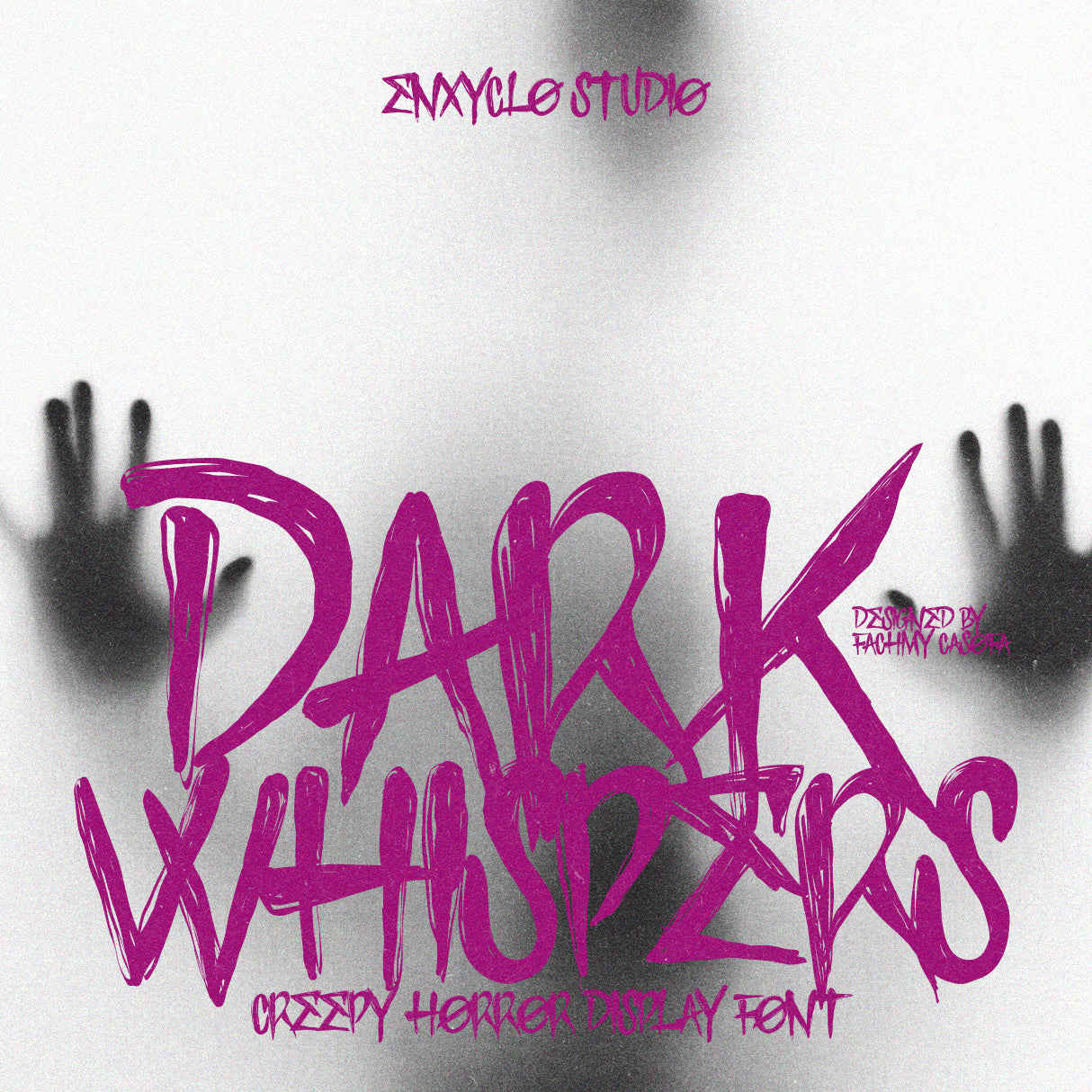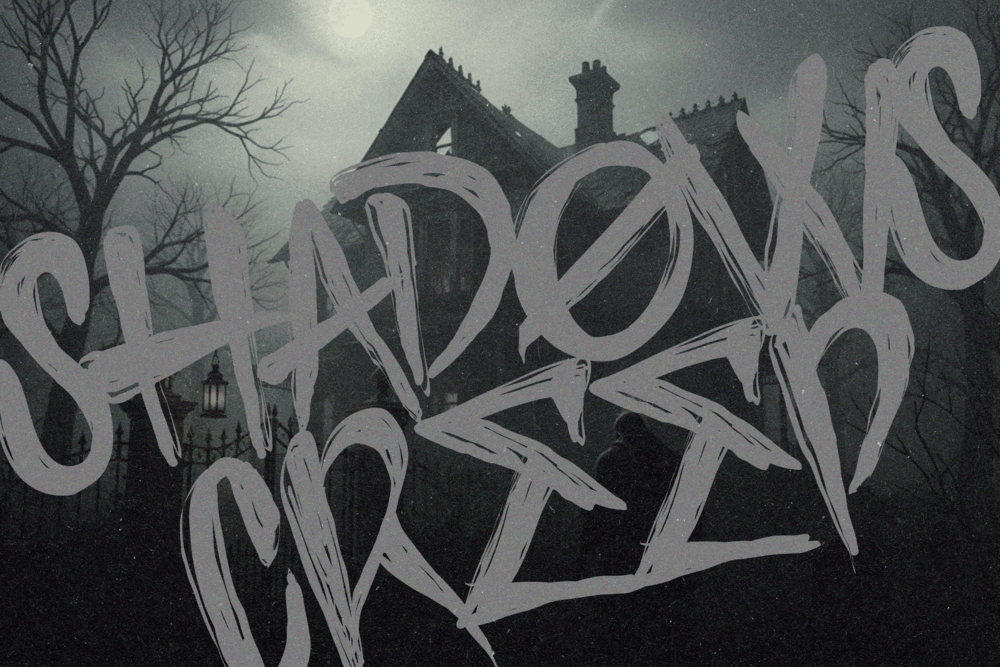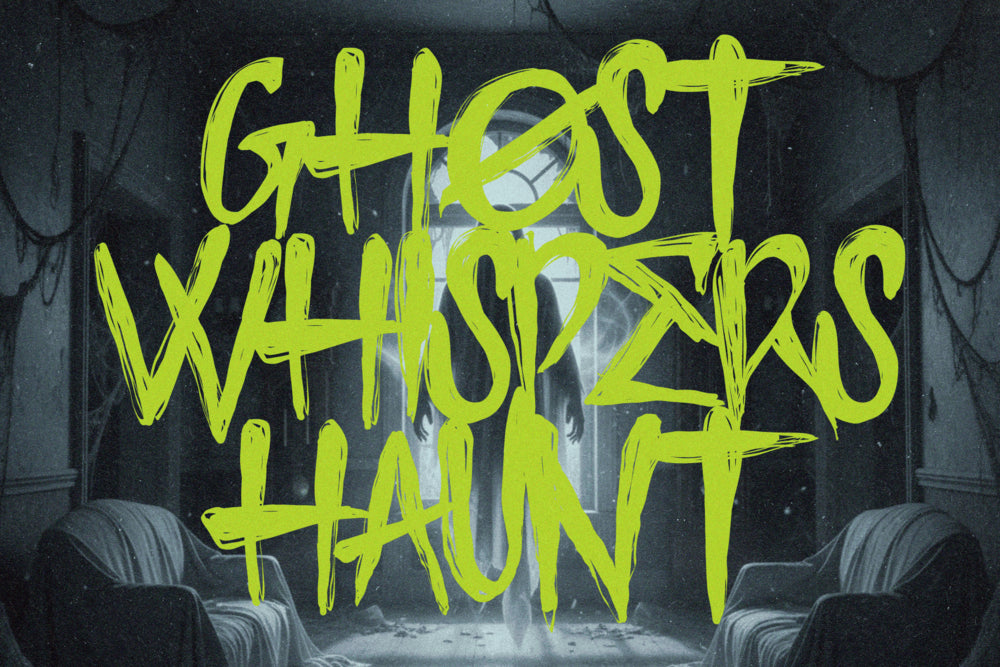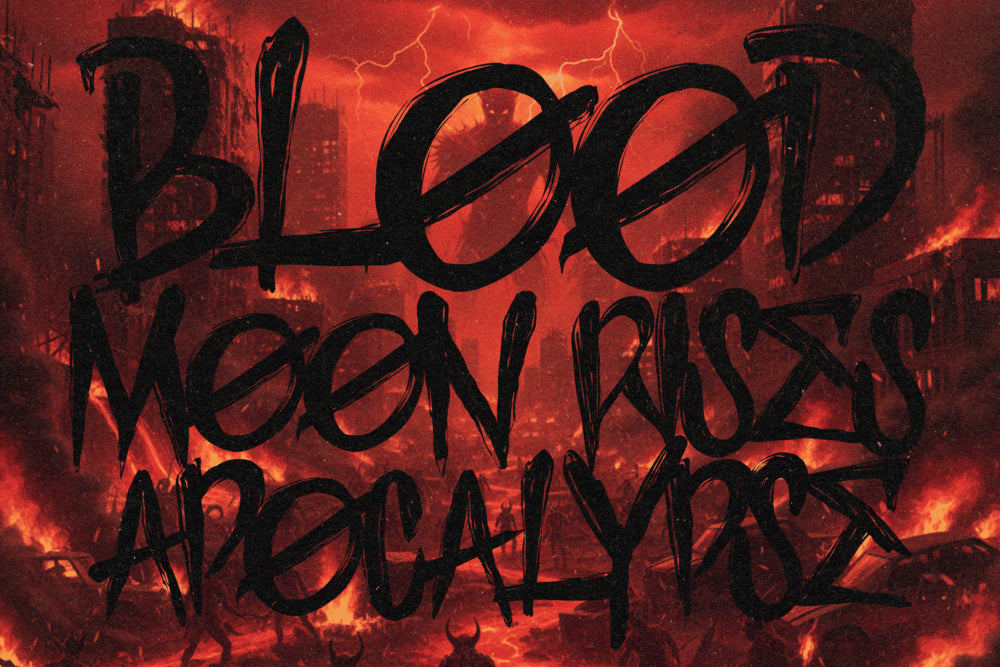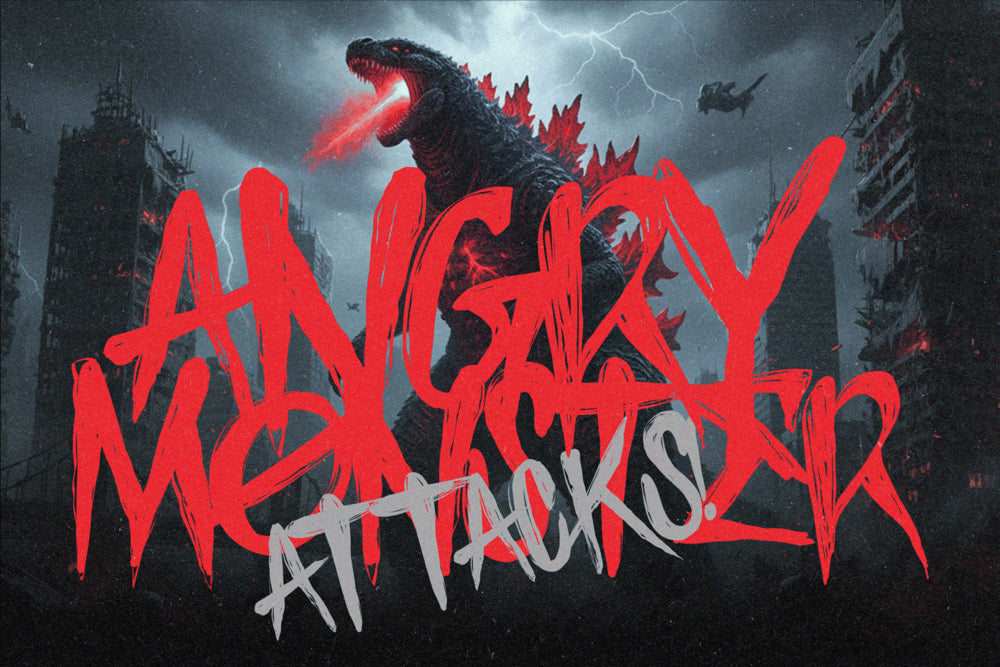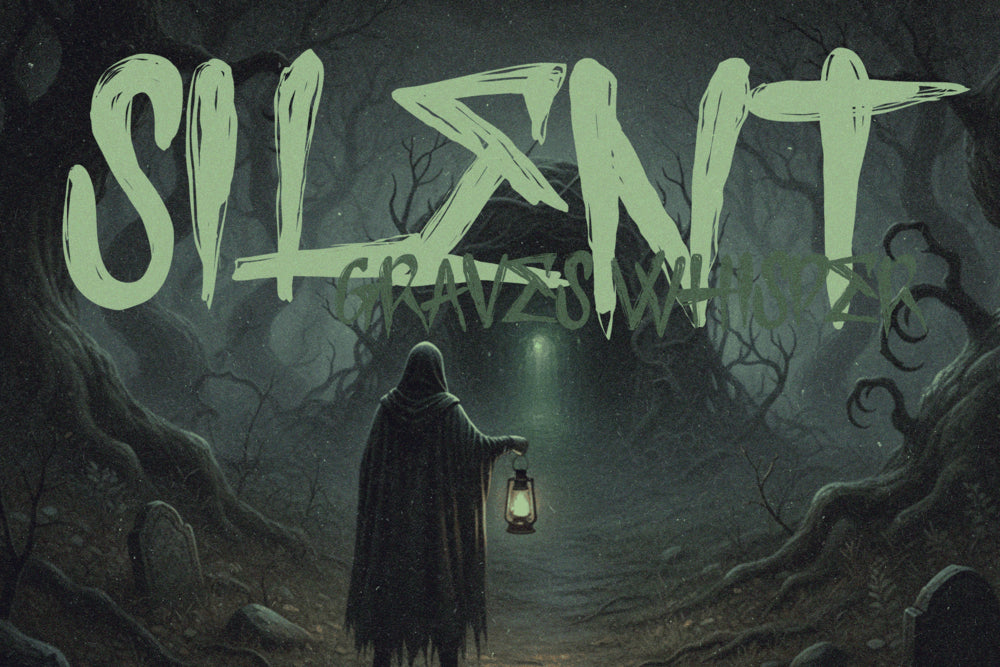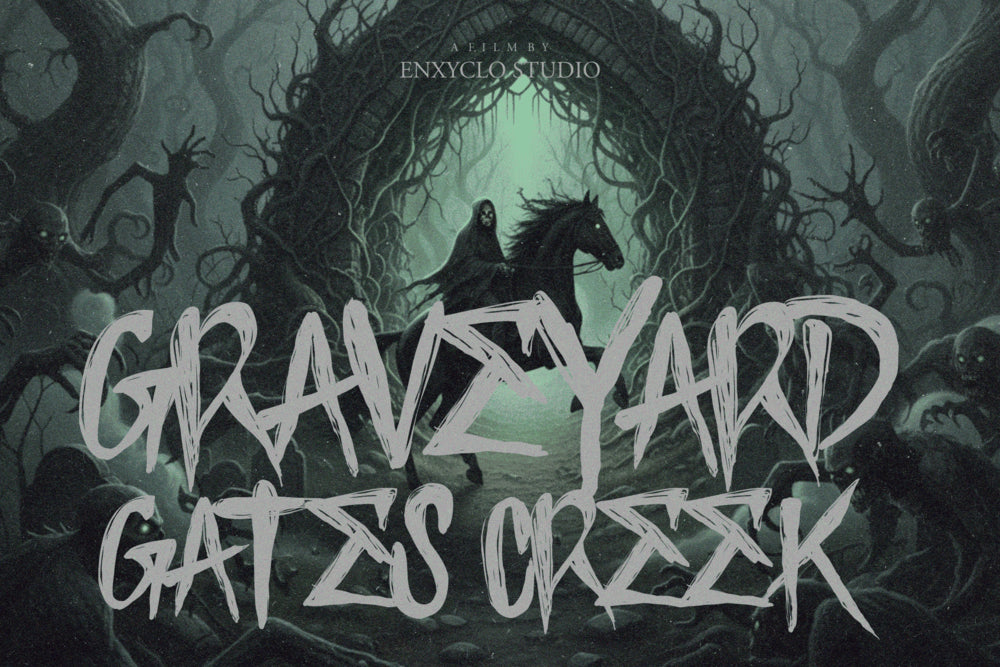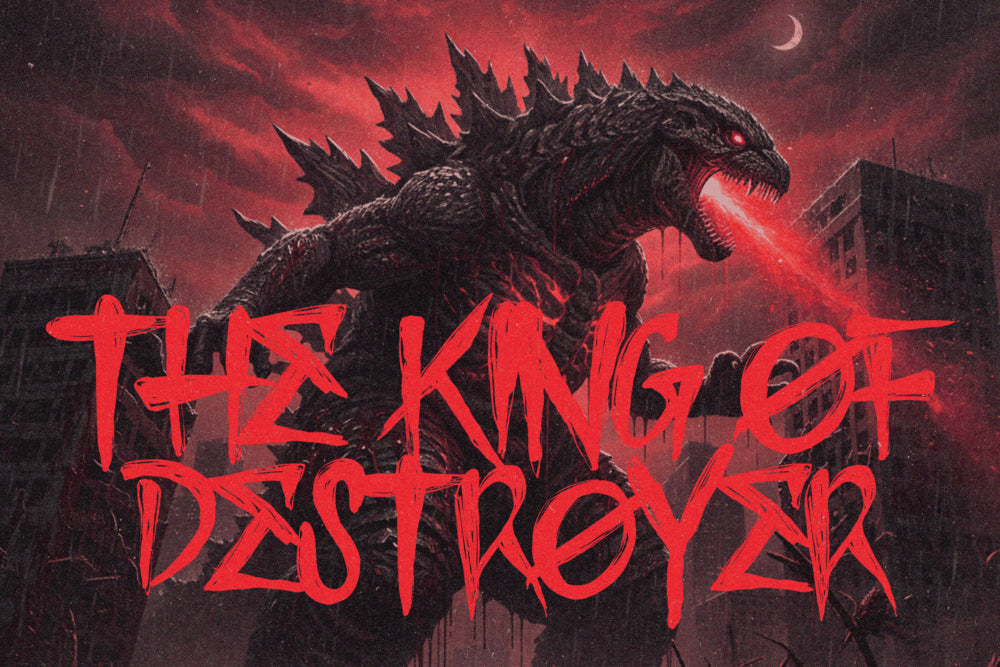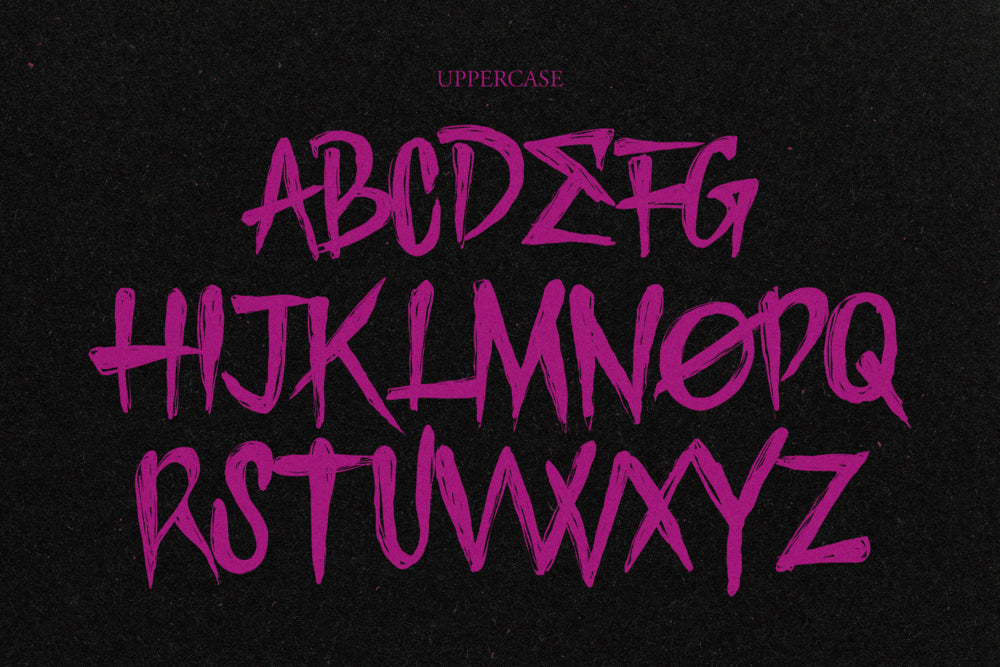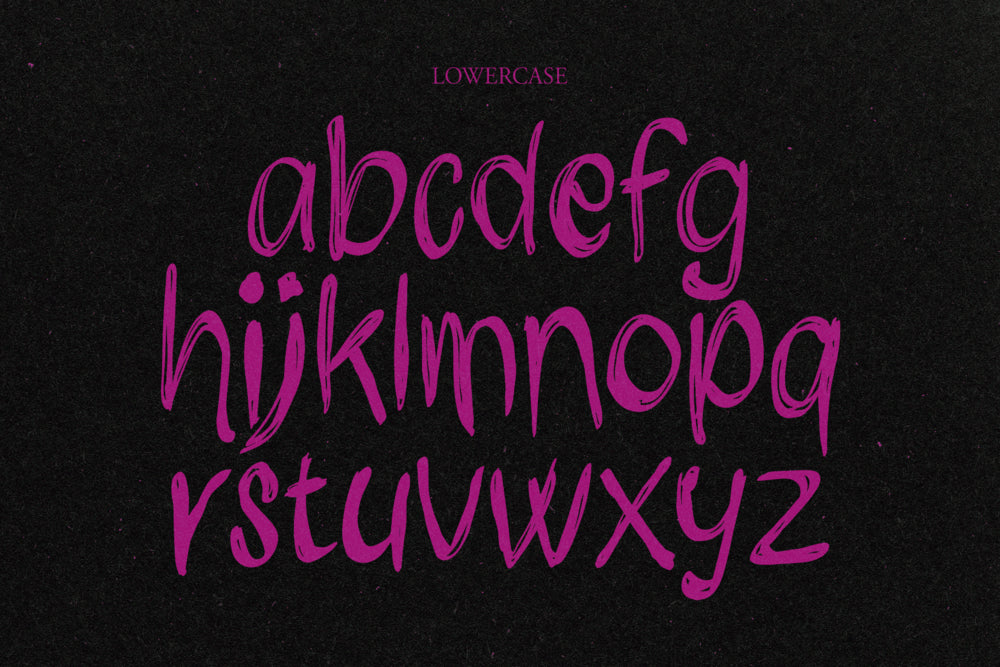
DARK WHISPERS — Creepy Horror Font
DARK WHISPERS is a bold display typeface designed to evoke a classic horror atmosphere, featuring unique letterforms that enhance any spooky project. It includes True Type Font (TTF), Open Type Font (OTF), and Web Open Format (WOFF1 & WOFF2), with uppercase and lowercase letters, numerals, punctuation, and symbols.